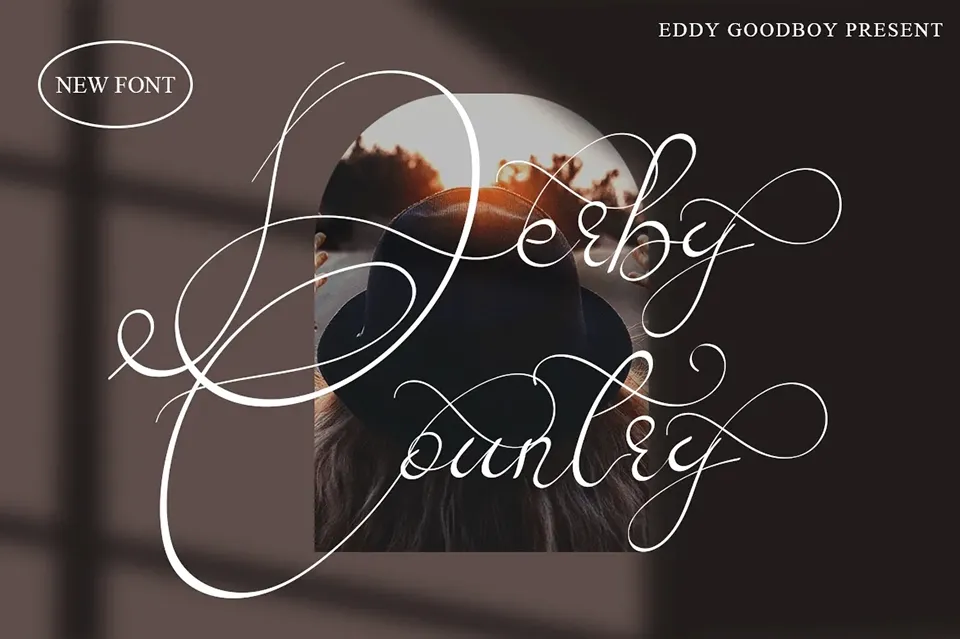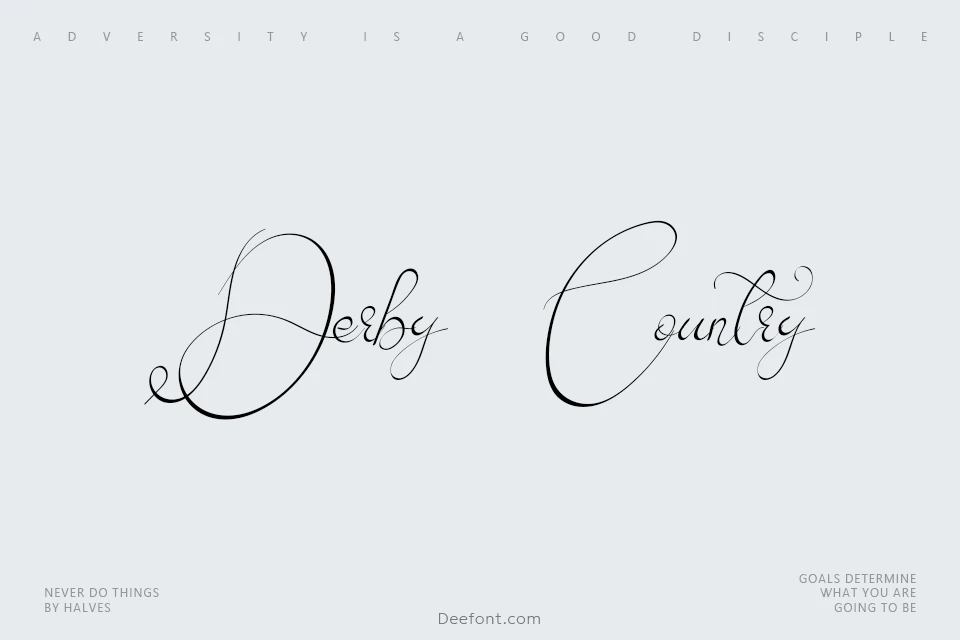
Derby Country Font
Derby Country Font is a beautiful and sweet script font, featuring fresh, clean, and elegant strokes. Perfect for a wide range of projects, this font adds a touch of sophistication and charm to invitations, branding, logos, and more. Its stylish swashes and graceful curves make it especially suitable for creative and decorative typography.Derby Country Font will help your designs stand out with elegance and flair.